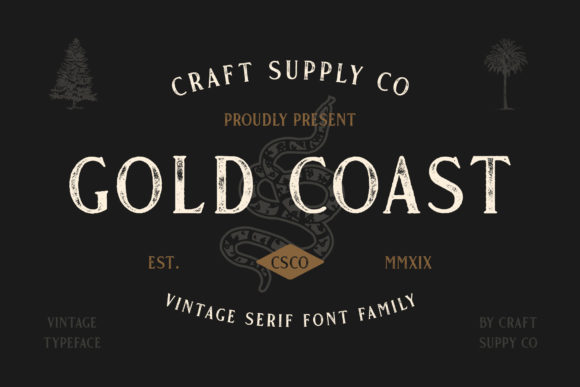
Introducing Gold Coast Font, an exquisite serif font that exudes elegance and sophistication, ready to transform your creative projects into masterpieces. Inspired by vintage aesthetics, this font boasts a timeless appeal that effortlessly adds a touch of classic charm to any design.
Crafted with meticulous attention to detail, Gold Coast Font captures the essence of traditional serif fonts while maintaining a modern and versatile touch. Its delicate curves, graceful serifs, and balanced proportions create an aesthetically pleasing typography that commands attention. Whether you're designing logos, branding materials, invitations, or any other creative endeavor, Gold Coast Font will infuse your designs with an aura of timeless beauty.
With its wide range of characters, including uppercase, lowercase, numerals, and a comprehensive selection of punctuation marks, Gold Coast Font ensures that you have all the elements you need to create stunning typography. Unleash your creativity and let your designs shine with the elegance of Gold Coast Font.